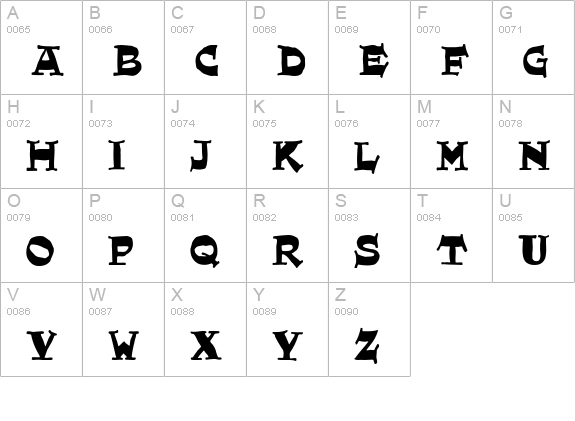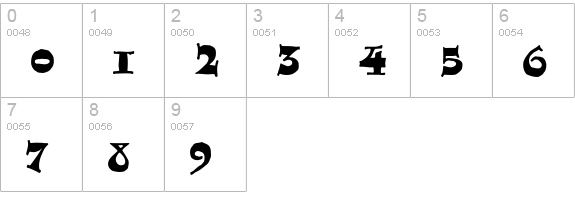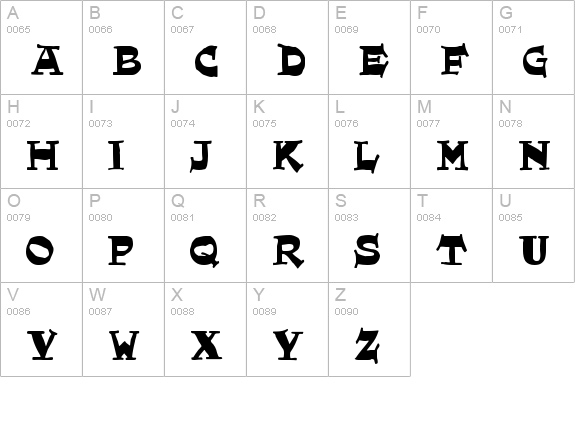
Quaint MF Font Details
Quaint MF font is a charming and whimsical typeface that exudes a sense of nostalgia and elegance. Its delicate curves and vintage-inspired design make it perfect for adding a touch of quaintness to any project. This versatile font is suitable for various design purposes, from invitations and greeting cards to branding and packaging. The best part? Quaint MF font is completely free to download at FontsMarket.com! Enjoy the beauty and uniqueness of this font without any cost, and elevate your designs with its timeless appeal. Whether you're working on a personal project or a professional assignment, Quaint MF font is sure to captivate your audience and leave a lasting impression. Download now and add a touch of charm to your designs with Quaint MF font.